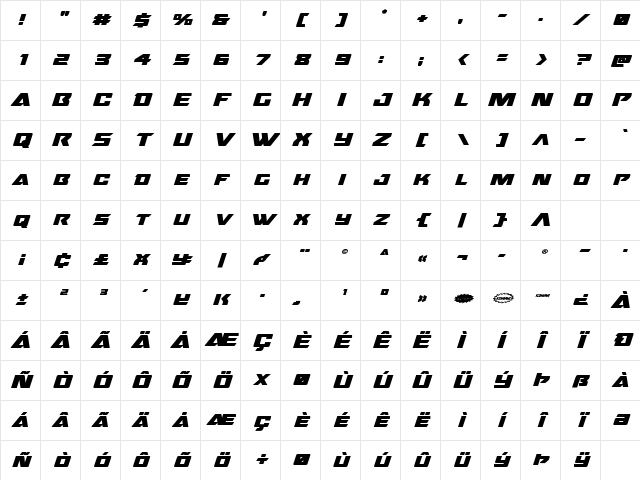
Oceanic Drift Bold Expanded Italic Free Font
Oceanic Drift Bold Expanded Italic Bold Expanded Italic
Style: Bold Expanded Italic
Design Context for Oceanic Drift Bold Expanded Italic
Oceanic Drift Bold Expanded Italic is a composed and adaptable typeface that performs quietly and consistently across a wide range of design contexts. The slanted form adds forward momentum and visual energy. Its bold stroke weight gives it real presence on the page.